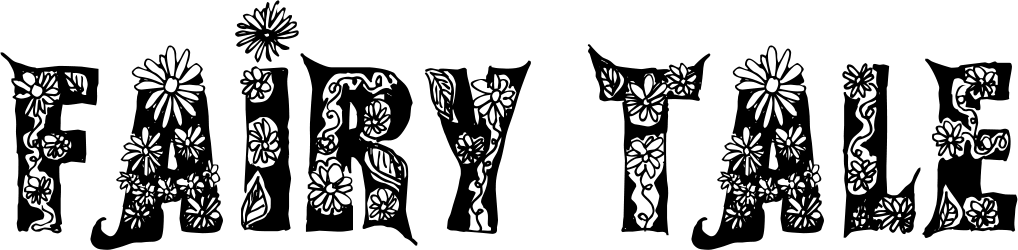
Fairy Tale Font
We’re back with Fairy Tale font. As every designer knows, this one can be a perfect choice for when you need to grab attention. There are so many different situations you can take advantage of this magic font, to give you an idea; flower shop signs, headlines, or even apparel products. So don’t waste your time anymore and experience an astonishing text-based layout.